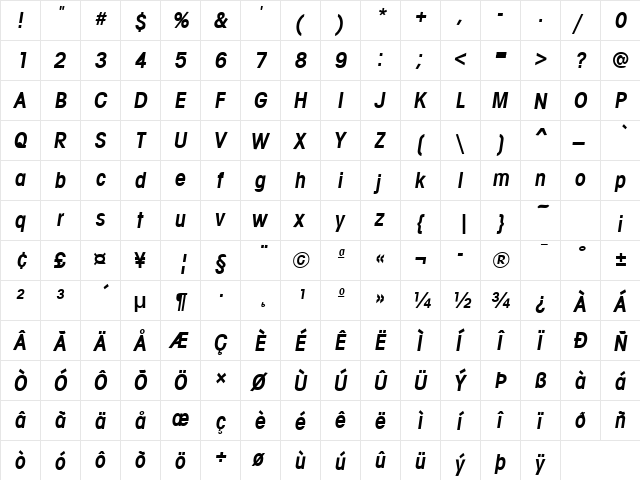
AvalonCond Bold Italic Font Preview
Design Context for AvalonCond Typeface
AvalonCond is a composed and adaptable typeface that performs quietly and consistently across a wide range of design contexts. The slanted form adds forward momentum and visual energy. Its bold stroke weight gives it real presence on the page. Its narrow stance lets it pack a punch even in space-constrained designs.
Pro Tip: Try AvalonCond for annotation and caption copy alongside an upright companion — the contrast in angle creates a dynamic but ordered typographic system.